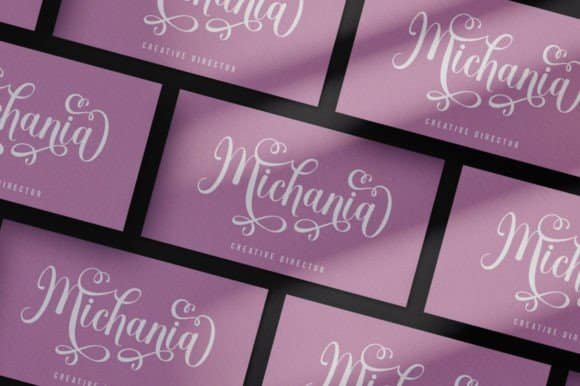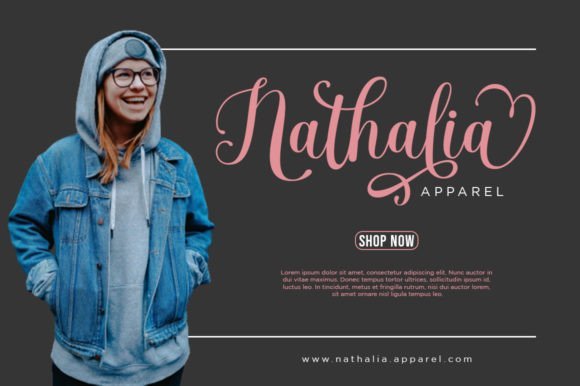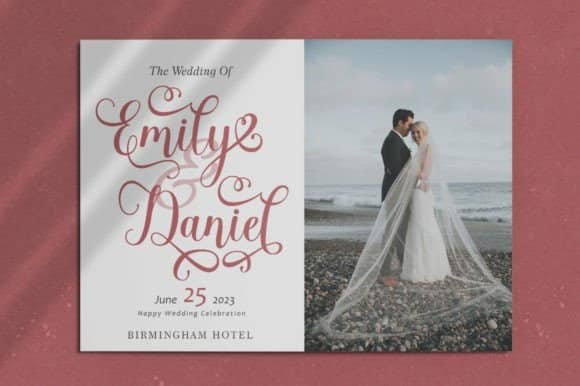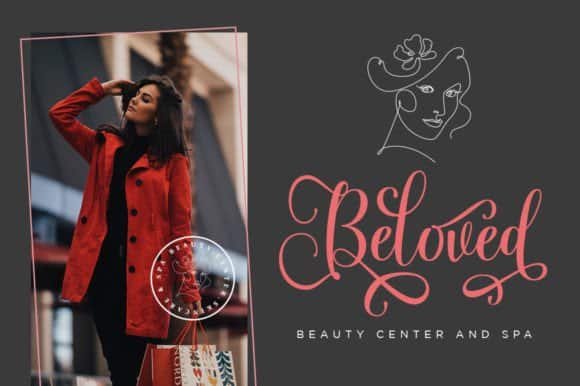
Glowing Heart Font
Romie Creative
Glowing Heart is a graceful, modern calligraphic font. With its beautiful rhythm, this font will help you create gorgeous and classy compositions. Use it for branding projects, invitations, web graphics, cards, and many more!